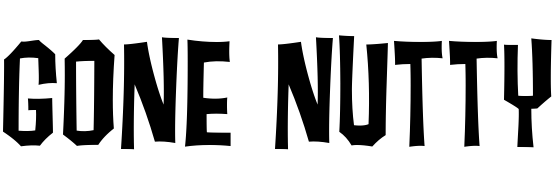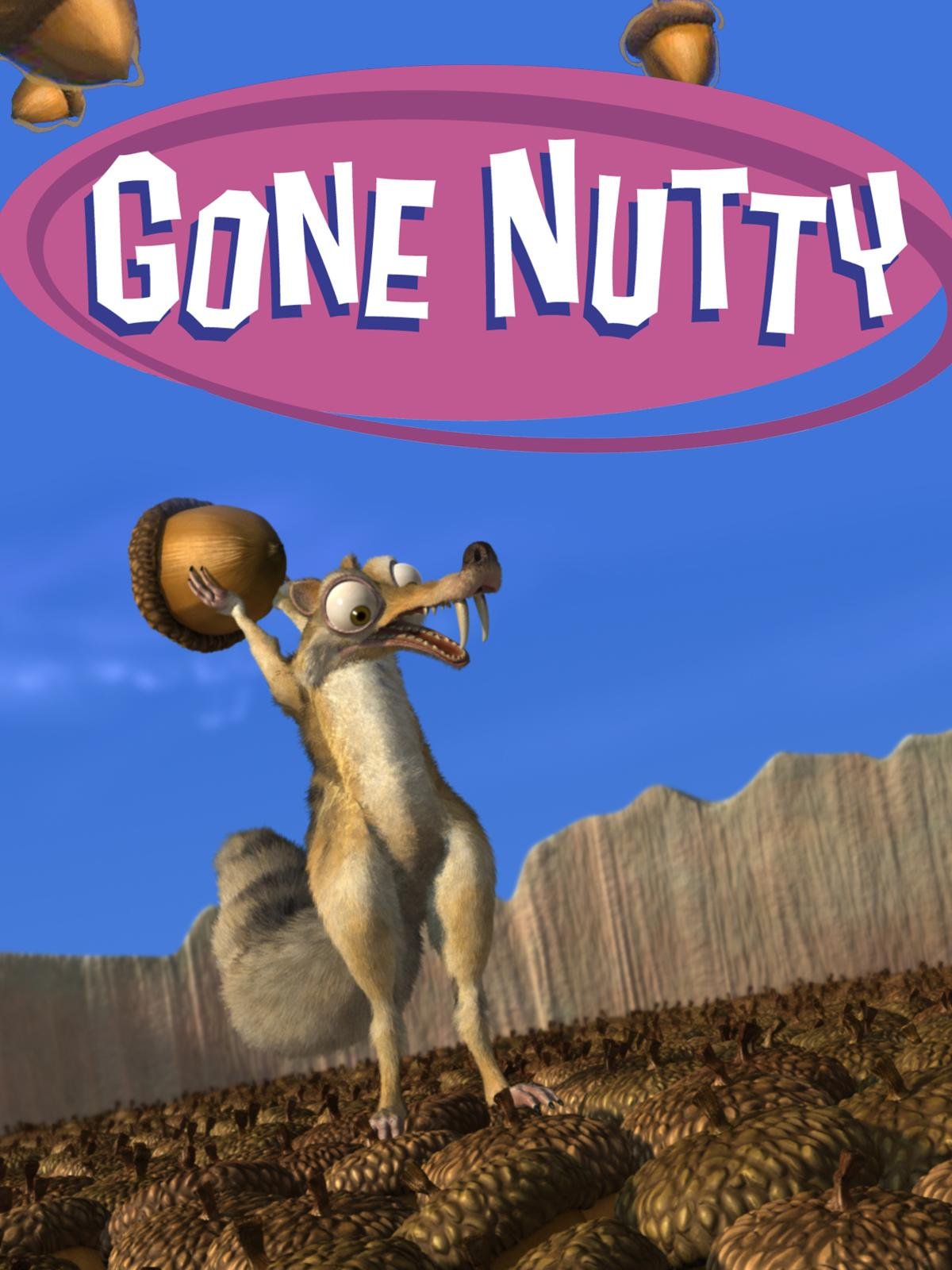
Gone Nutty Font
AnimationGone Nutty is a 2002 computer-animated short film for Blue Sky Studios directed by Carlos Saldanha. It is about Scrat, the acorn-obsessed squirrel from the Ice Age movies, as he tries to secure his next acorn stash while avoiding danger.
The Gone Nutty title on the poster uses a comic font named Fink Sans from House Industries. Fink Sans is part of the hand-lettered RatFink font family. You can view more details about the font family here.